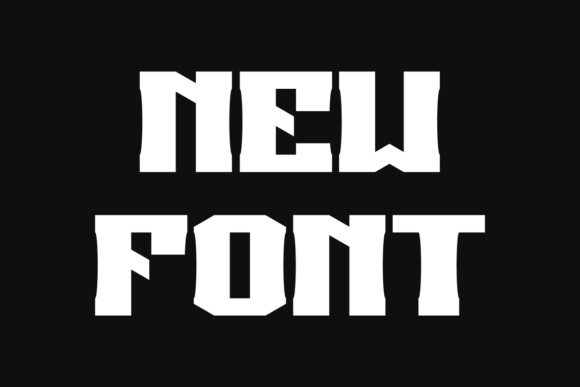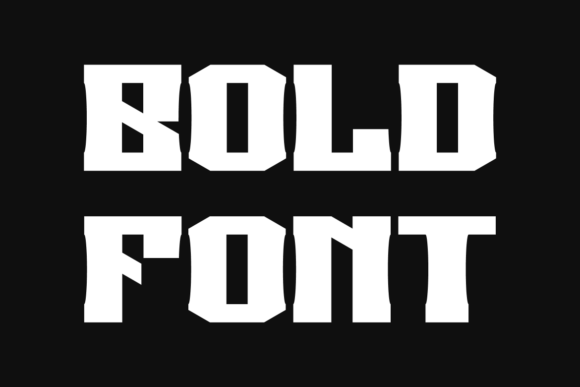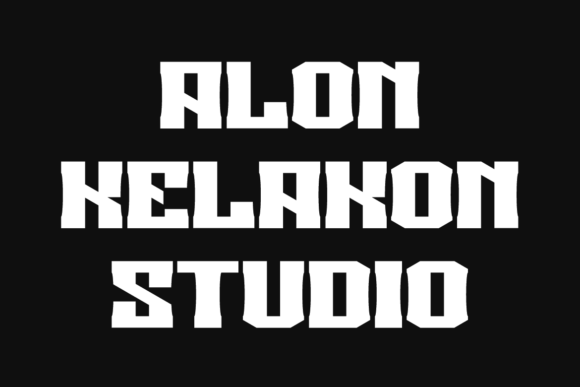
Introduction to Dozer Signoz Font
Dozer Signoz is a powerful and bold sport font that exudes strength and dynamism.
With its commanding letters and rugged design, this font is the perfect choice for sports-related graphics, team logos, and athletic branding Give your projects a competitive edge with the robust and energetic style of Dozer Signoz.